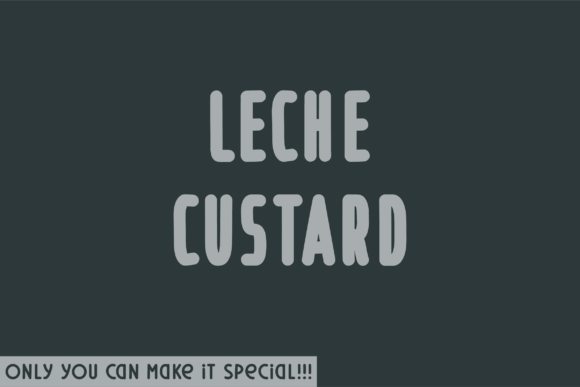
Introducing Leche Custard Font, the irresistible font that will tantalize your readers and make your designs stand out!
Our talented artist, Hanna Bie, has crafted this masterpiece without altering a single node, resulting in a font that is both captivating and unique. Leche Custard's graceful curves and elegant lines will elevate your quotes, notes, and designs to new heights.
Imagine your words flowing effortlessly across the page, adorned with this enchanting font. Your quotes will become quotable, your notes unforgettable, and your designs irresistible. Leche Custard is the perfect companion for any project that demands attention and evokes emotion.
Whether you're a designer, a blogger, or simply someone who loves to express themselves with style, Leche Custard is the font for you. Its versatility is unparalleled, allowing you to effortlessly create everything from stunning social media posts to eye-catching logos.